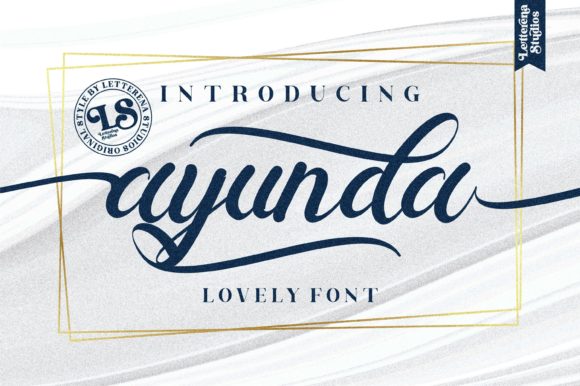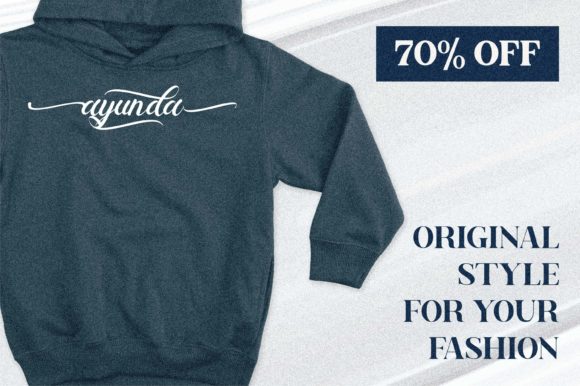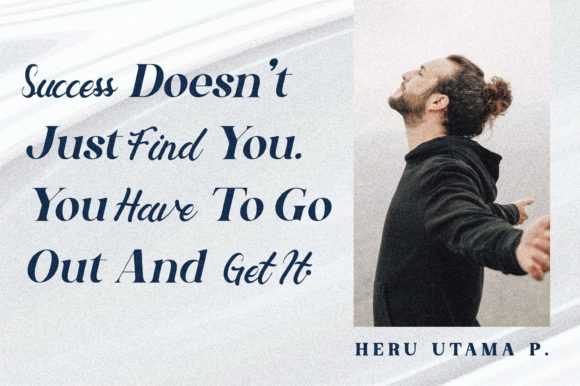
About Ayunda Font
Ayunda is a bold and beautiful paint brush handwritten font. Fall in love with its incredibly versatile style and use it to create gorgeous wedding invitations, beautiful stationary art, eye-catching social media posts, and much more! This font is PUA encoded which means you can access all of the glyphs and swashes with ease!